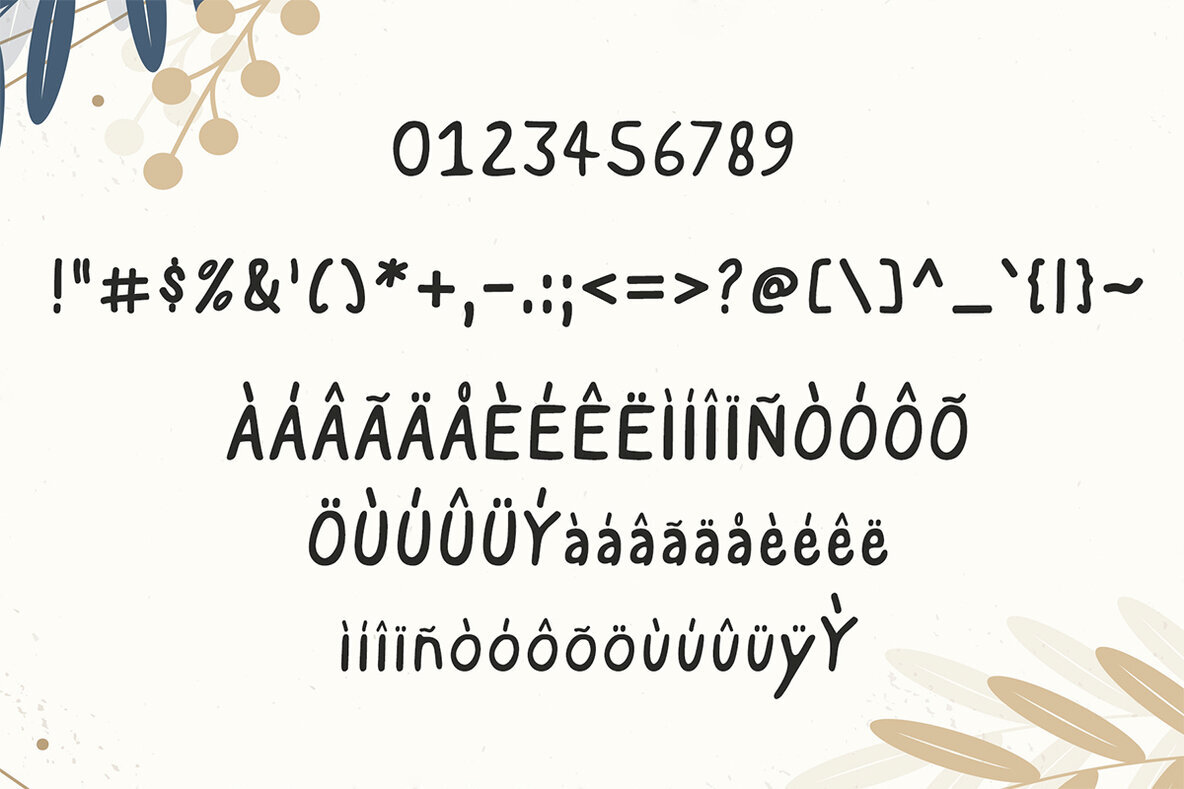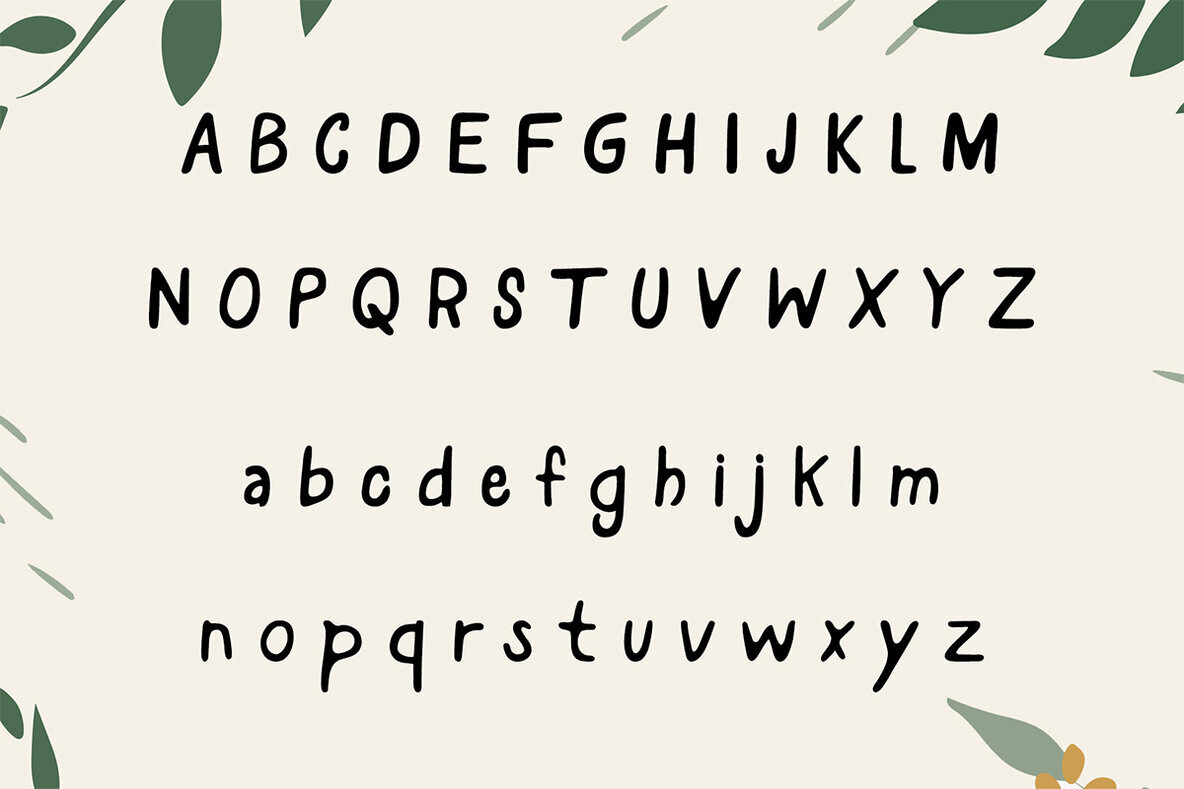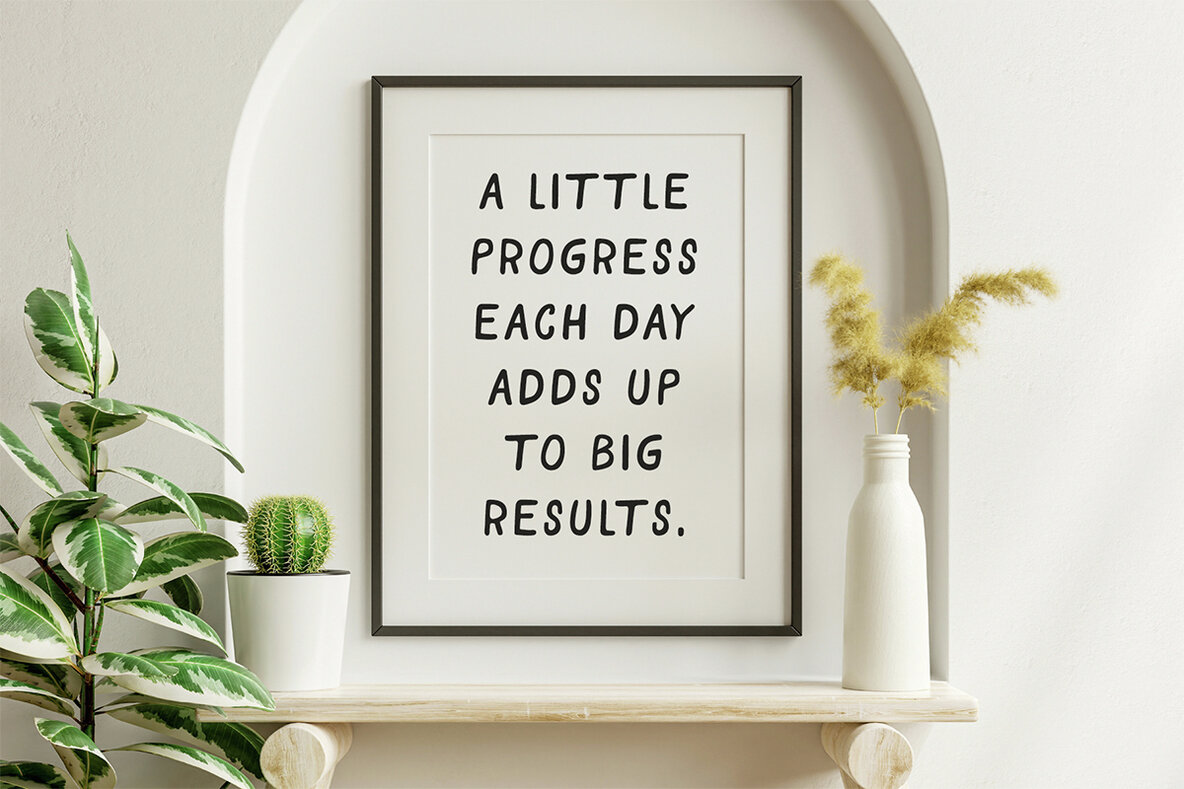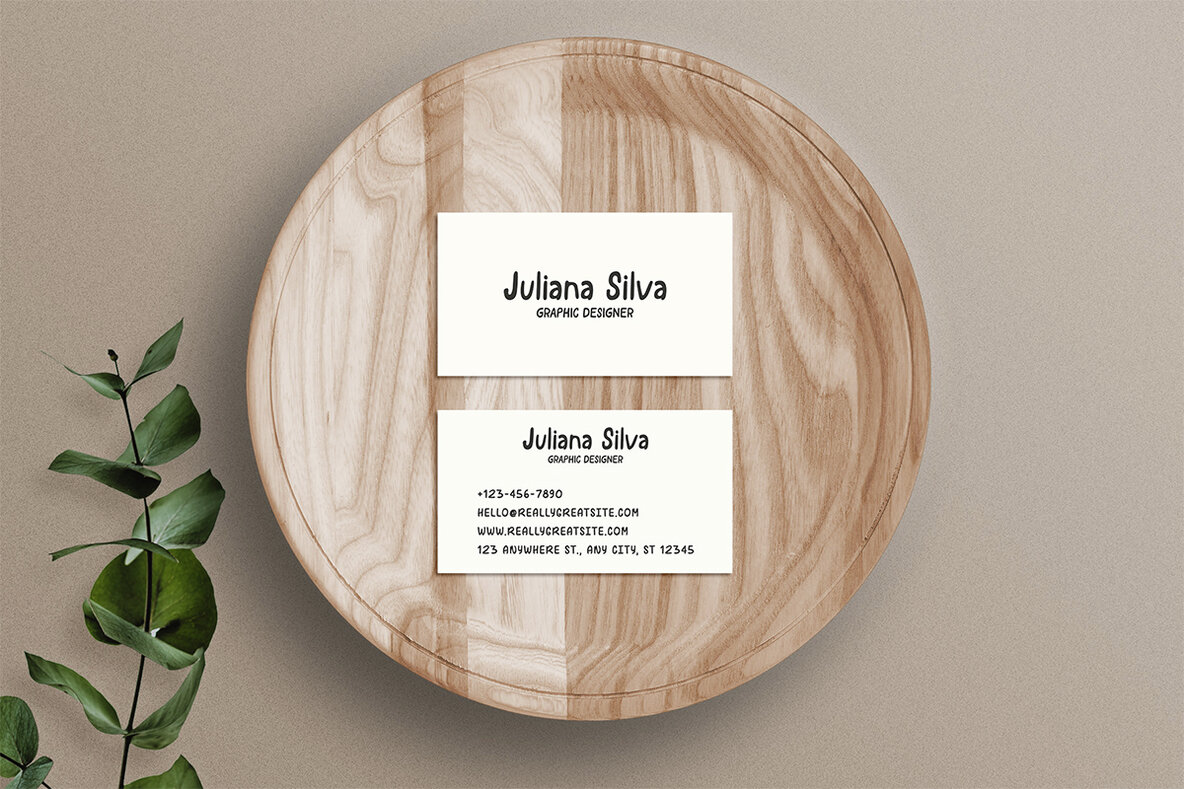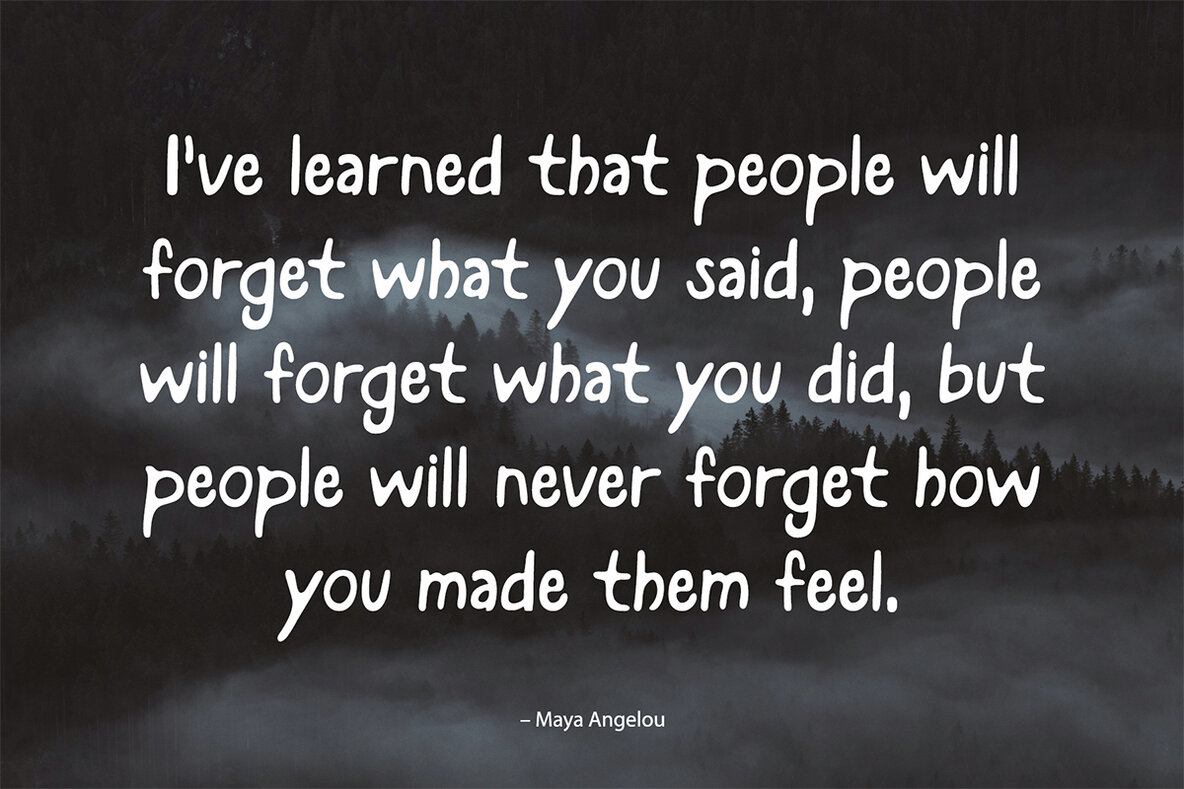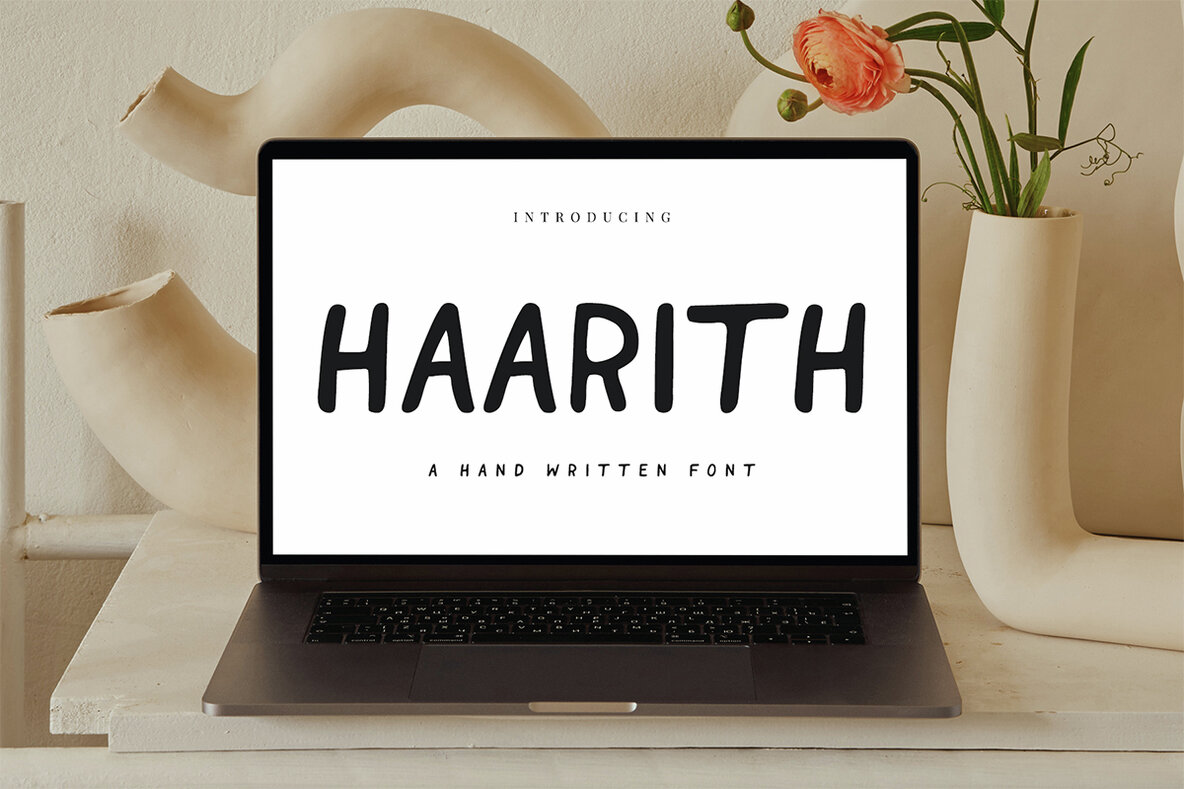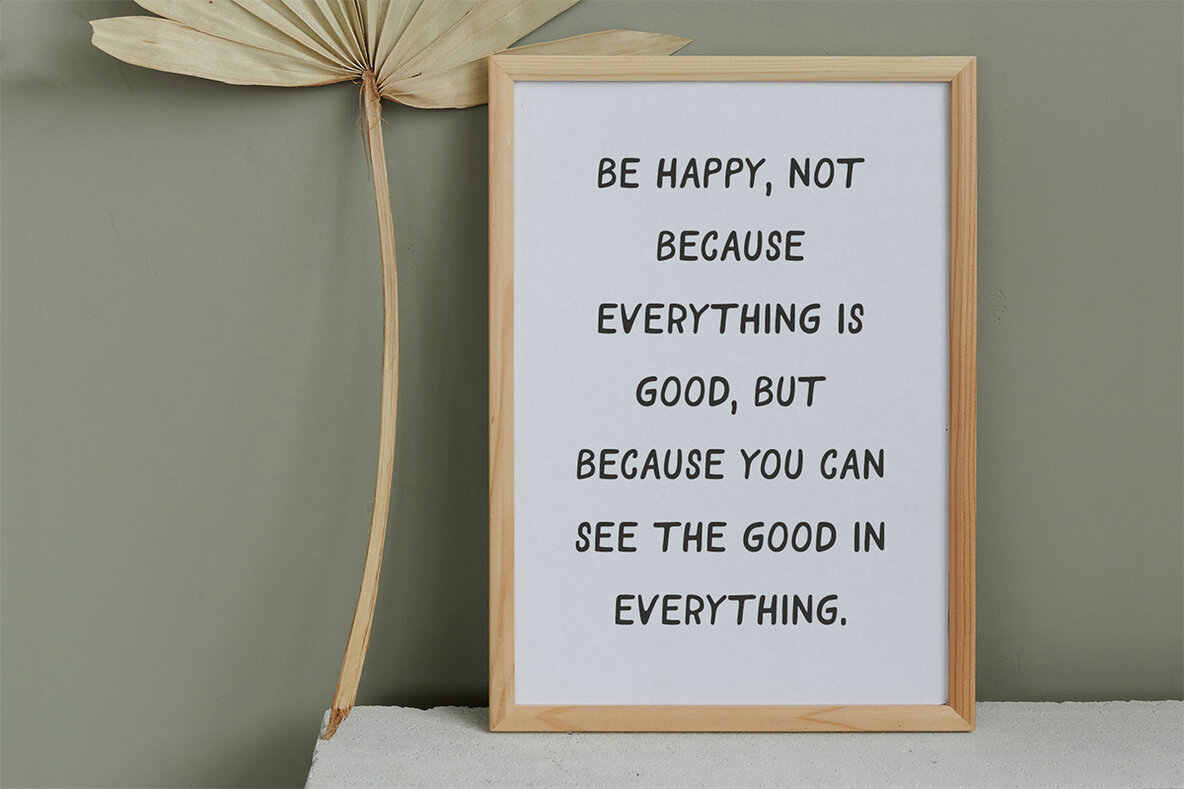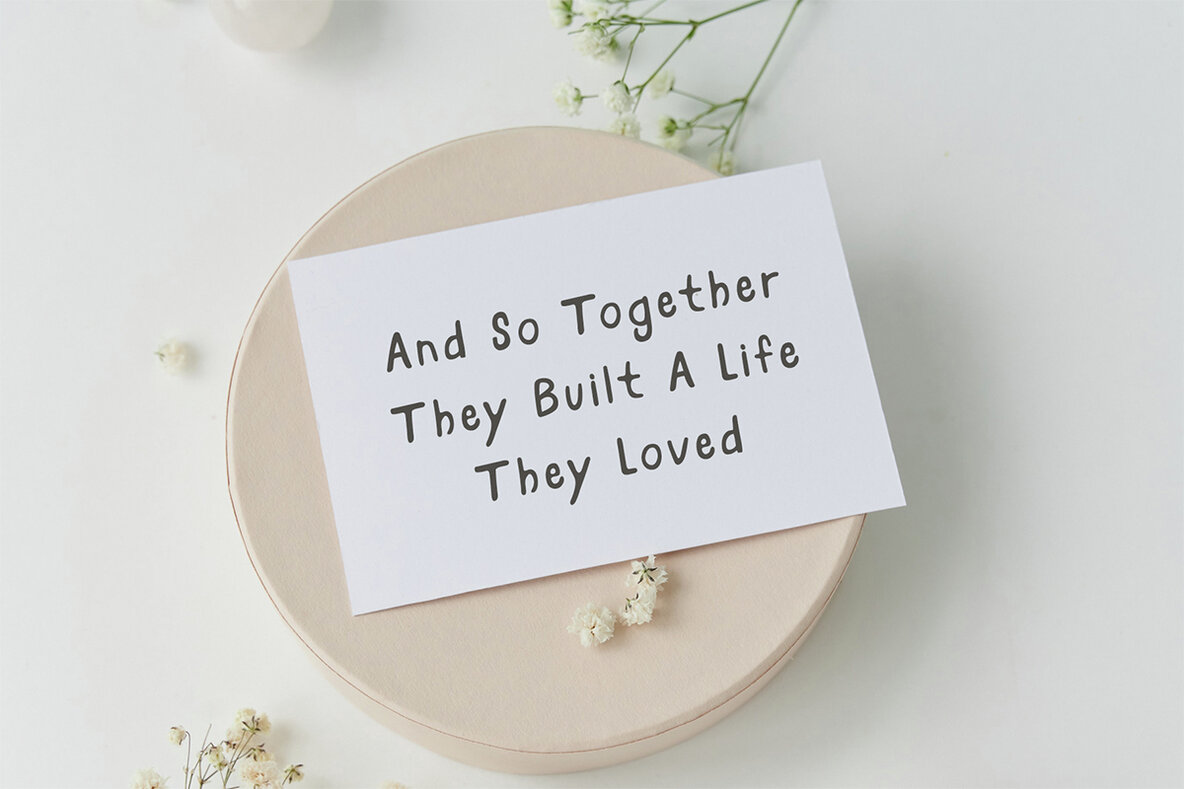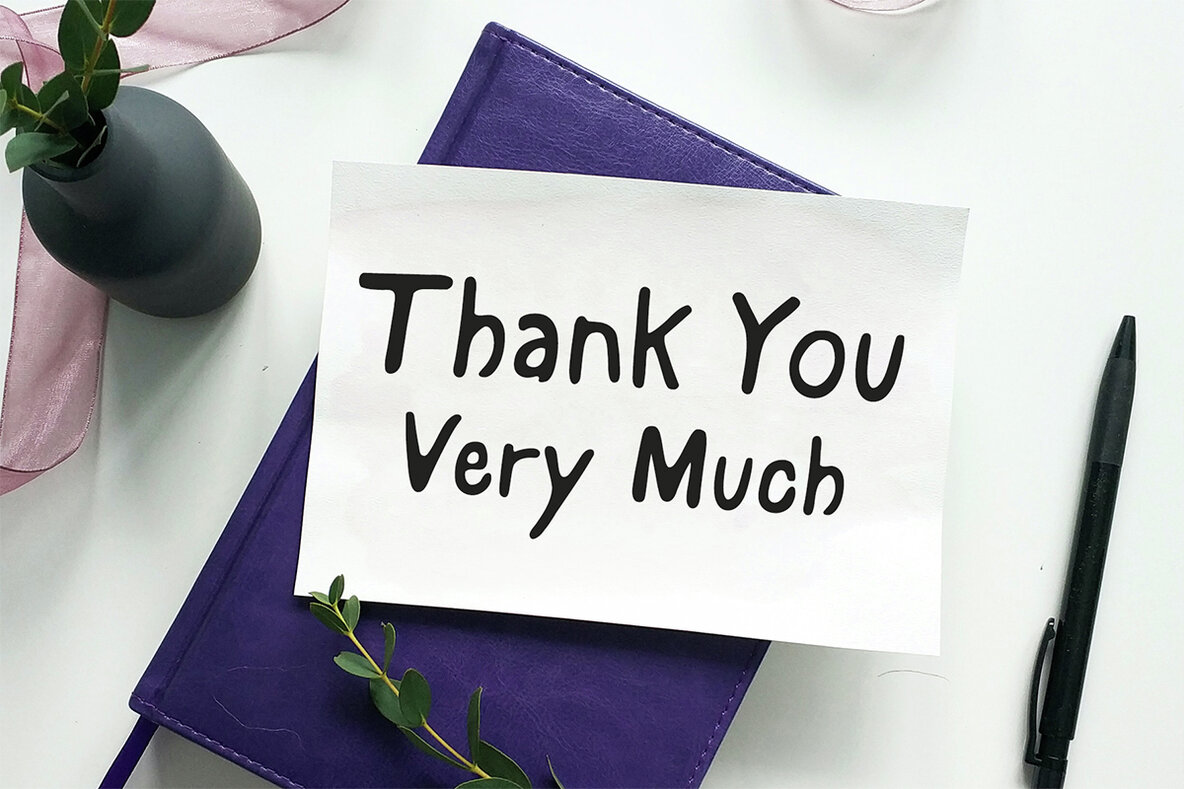
Haarith Font
Haarith Regular
We are delighted to share Haarith Handmade Font, a brilliant, eye-catching and attractive font made by hand with cute and contemporary feels for future projects! It contains uppercase letters, lowercase letters, numbers, punctuation, and symbols and supports multilingualism. Haarith font is excellent for various tasks such as packaging, presentations, logos, headlines, lettering, posters, branding, quotes, titles, magazines, headings, web layouts, advertising, invitations, packaging design, books, and almost any creative design. Haarith Font Features: Supported Characters: